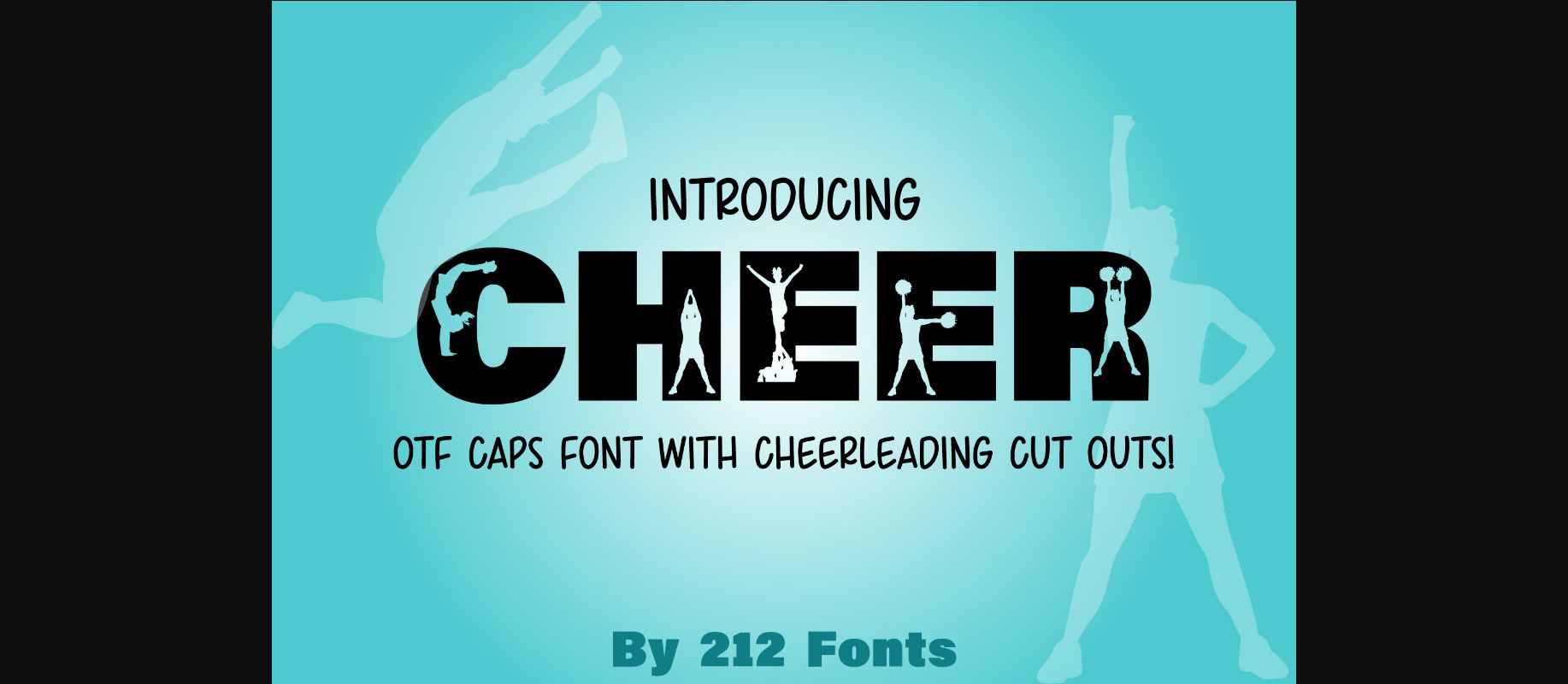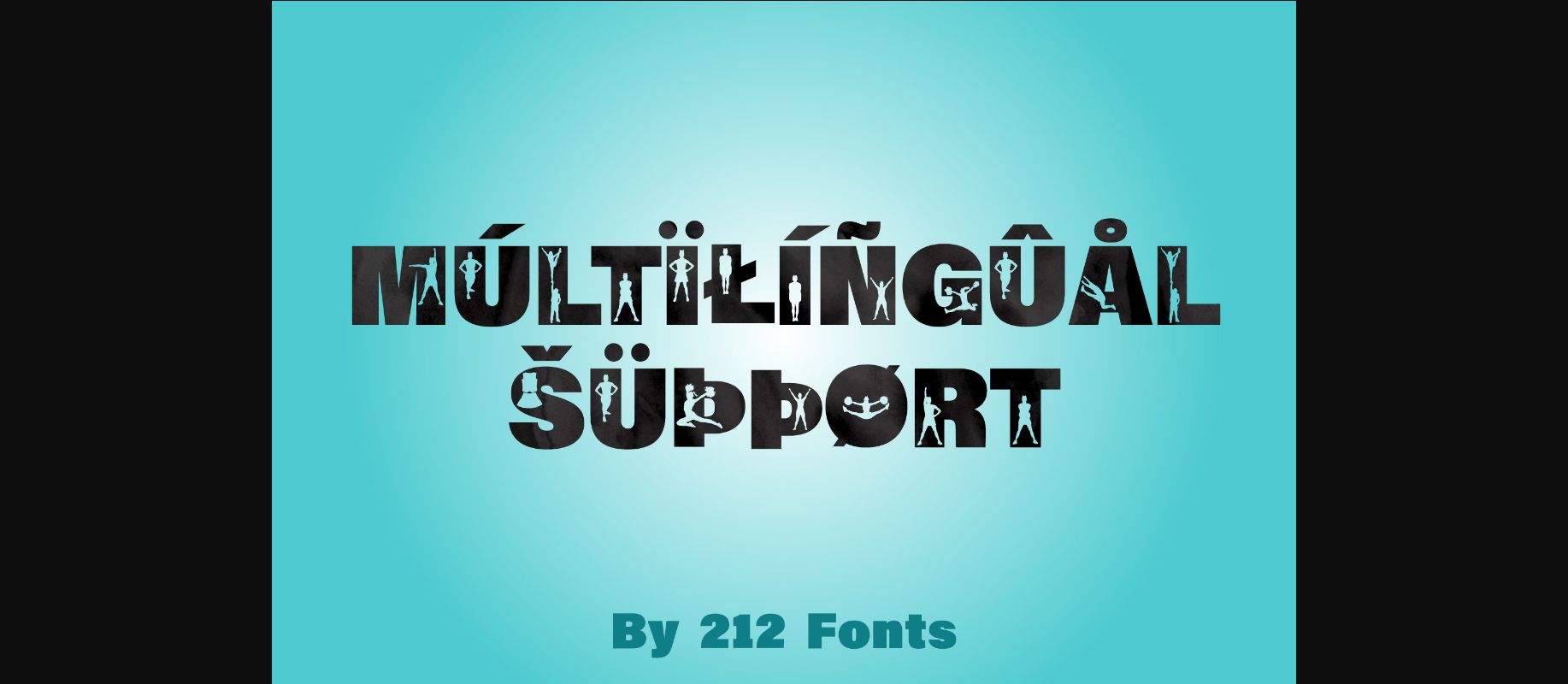
About Cheer Font
Cheer is a fun and energetic decorative font with cheerleader cutouts. Add it to your creative project ideas and you will love the results! Cheer is also PUA encoded which means you can access all the glyphs and ligatures with ease!